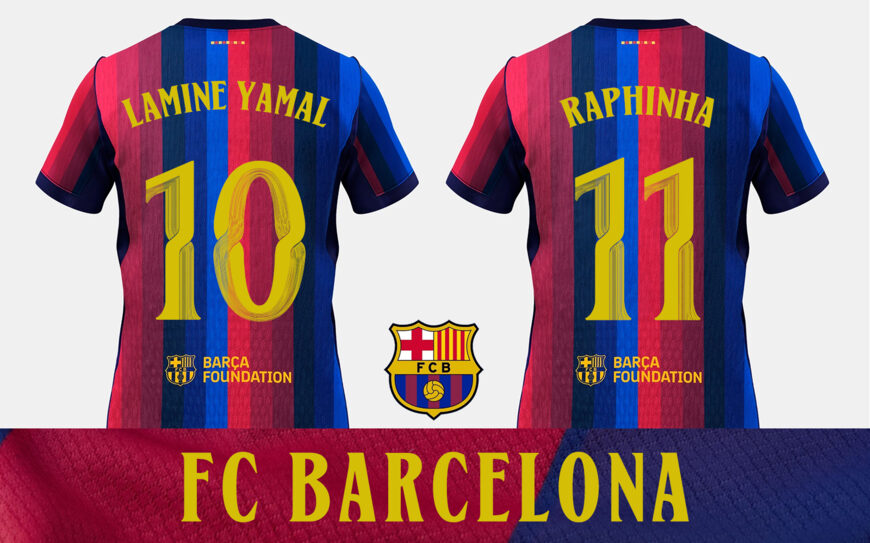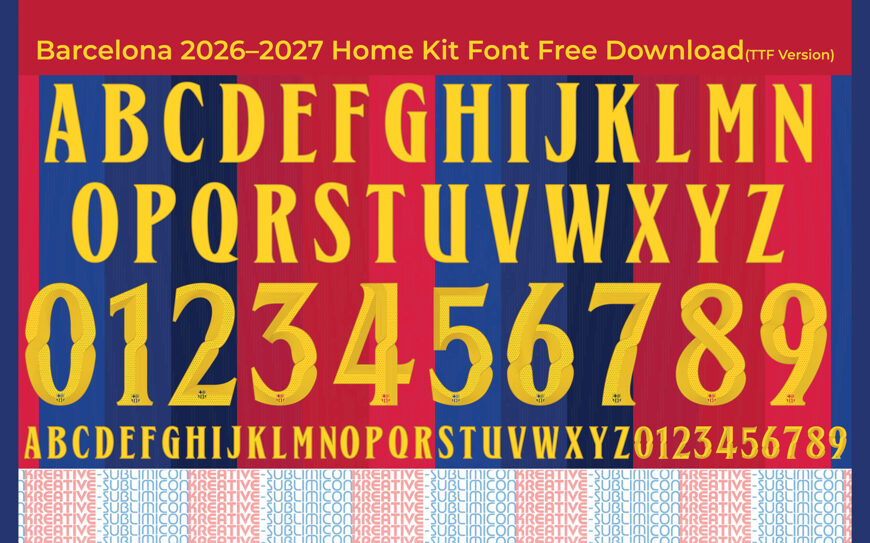
Barcelona 2026–2027 Home Kit Font Free Download (TTF Version) is carefully recreated from the authentic jersey lettering and numbering used on FC Barcelona’s 2026–2027 Home Kit.